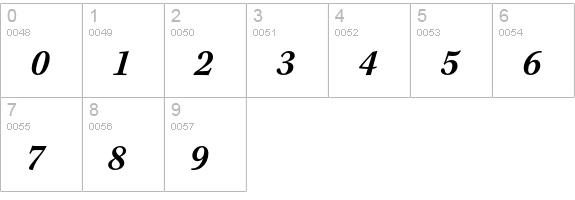
Kepler Std Semibold Semicondensed Italic Caption Font Details
Kepler Std Semibold Semicondensed Italic Caption is a sub-bold, structured, italic variant in the Kepler typeface family \xE2\x80\x94 well suited to sub-headlines and emphasised passages.
Kepler Std Semibold Semicondensed Italic Caption font is a stunning and versatile typeface that effortlessly combines elegance with readability. This font is perfect for creating eye-catching captions, titles, or headings that demand attention and make a statement. With its semi-bold weight and condensed form, Kepler Std Semibold Semicondensed Italic Caption font exudes strength and sophistication. The slight slant of the italic style adds a touch of dynamism and modernity, making it an excellent choice for projects that require a contemporary twist. The carefully designed characters of Kepler Std Semibold Semicondensed Italic Caption font ensure legibility even at smaller sizes, making it ideal for captions or subheadings in magazines, websites, or presentations. Its versatility extends to various design projects, such as logos, branding materials, and packaging. One of the best features of this font is its availability as a free download at FontsMarket.com. This means that designers and creatives can access and utilize Kepler Std Semibold Semicondensed Italic Caption font without any financial constraints. This font empowers users to unleash their creativity without compromising on quality or budget. In conclusion, Kepler Std Semibold Semicondensed Italic Caption font is a visually striking and practical typeface that adds a touch of elegance and modernity to any design project. Its availability as a free download at FontsMarket.com makes it even more accessible to designers, ensuring that they can create stunning visuals without limitations.